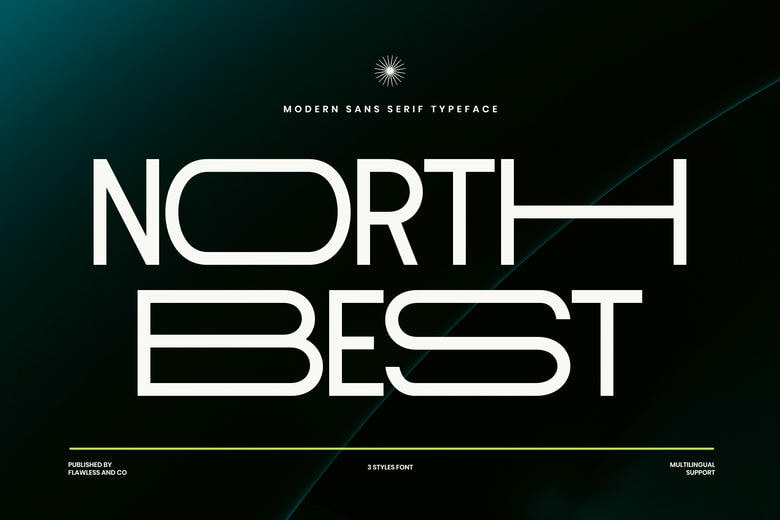
Northbest Font
Northbest is a contemporary sans serif typeface which designs the styles of minimal imaginations alongside bold fusions. Sleek and geometric, its clean lines and straight shapes are very suited to a modern sense of elegance and a desire to show sophistication on any project. Northbest is versatile and fits well in all branding, editorial designs, logos, fashion designs, posters, and digital interfaces.
Northbest Sans Serif Font